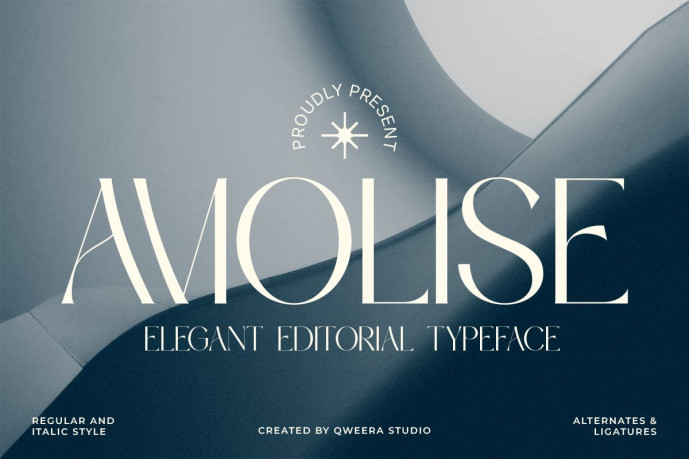
Amolise – Modern Elegant Editorial Serif Font
Designer: Idhham Cholid Rikzano Yahya
Amolise is an elegant editorial serif font crafted for fashion branding, luxury logos, boutique identity, premium packaging, and refined editorial design. With its high-contrast letterforms, graceful curves, and sophisticated display presence, Amolise brings a polished and timeless personality to modern visual projects.
Its refined serif structure works beautifully for magazine headlines, beauty campaigns, product packaging, fashion labels, social media visuals, elegant invitations, and premium brand presentations. Amolise includes uppercase and lowercase characters, alternates, ligatures, multilingual support, professional kerning, Regular and Italic styles, plus OTF, TTF formats for polished print and digital use.
Bring refined editorial elegance and luxury serif character into your next branding, packaging, or fashion project with Amolise.
Elegant editorial serif style
Complete uppercase and lowercase characters
Stylish alternates and ligatures
Multilingual character support
Professional kerning for polished typography
Regular and Italic font styles
Refined luxury look for fashion and boutique design